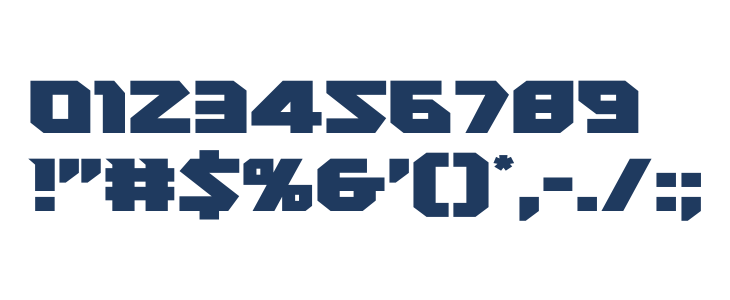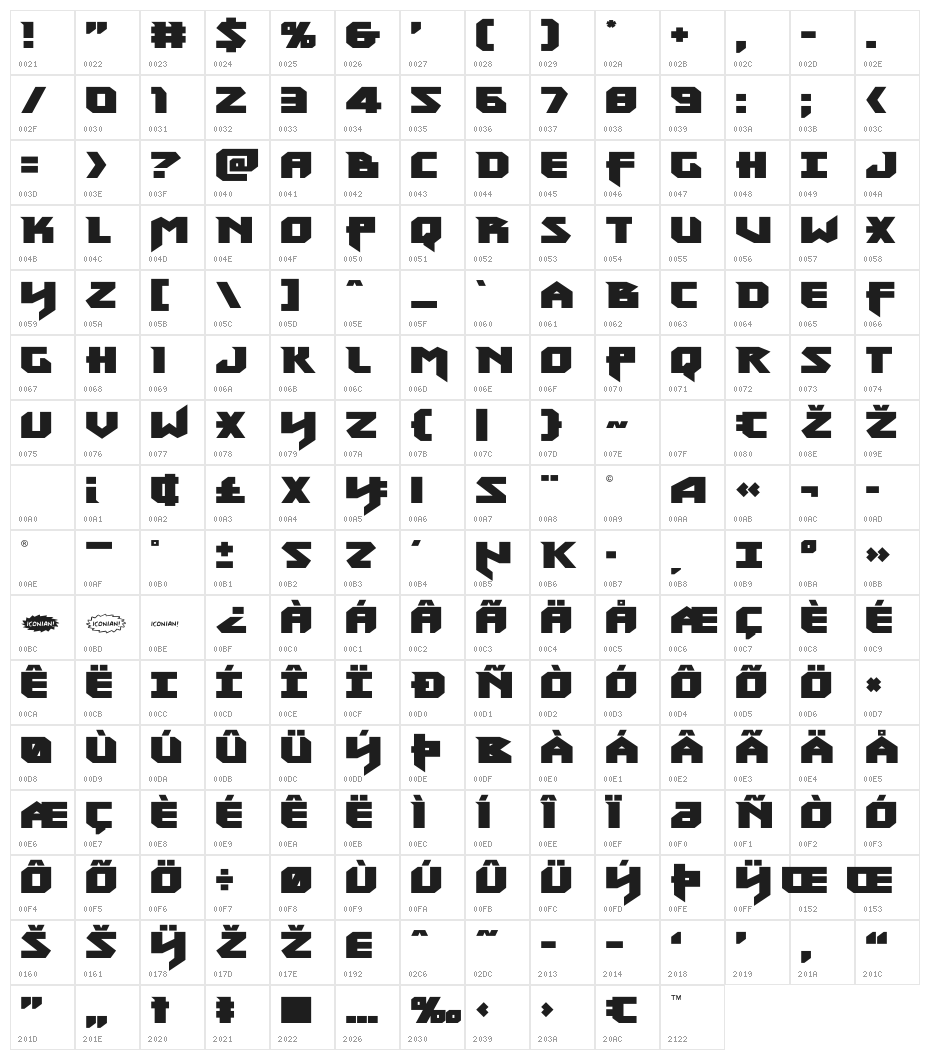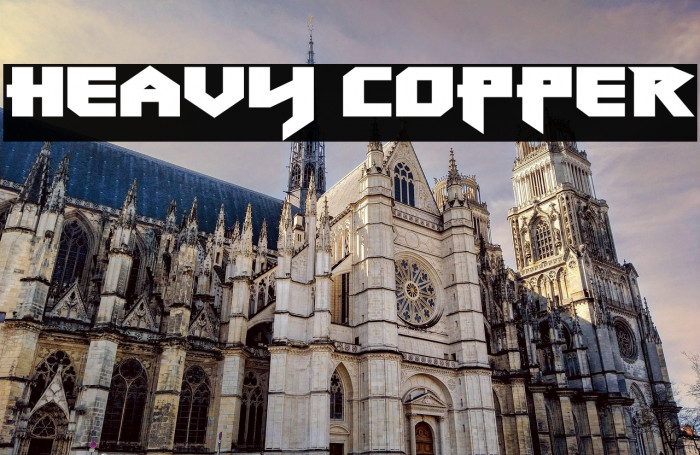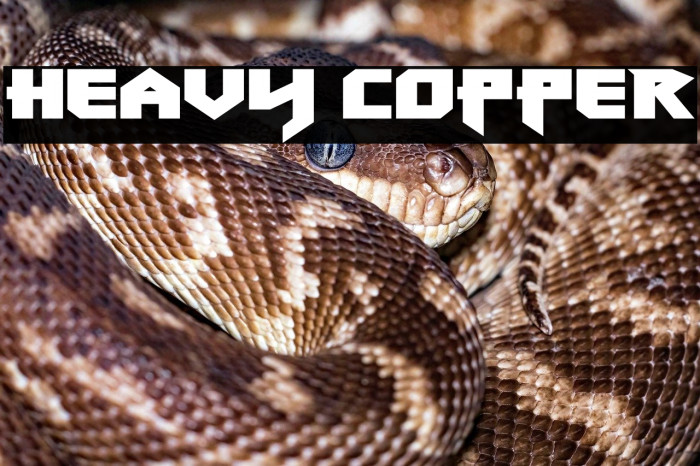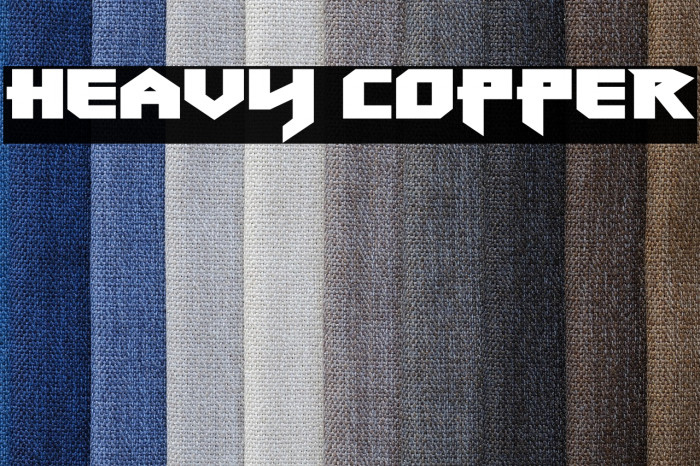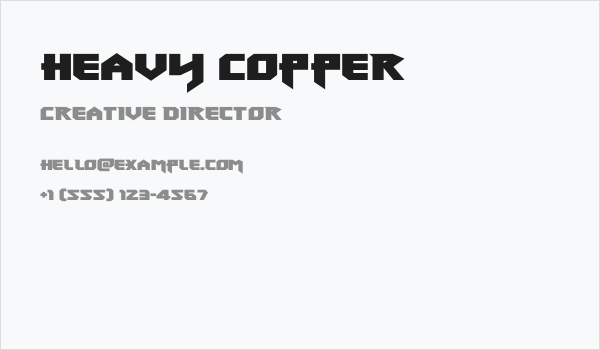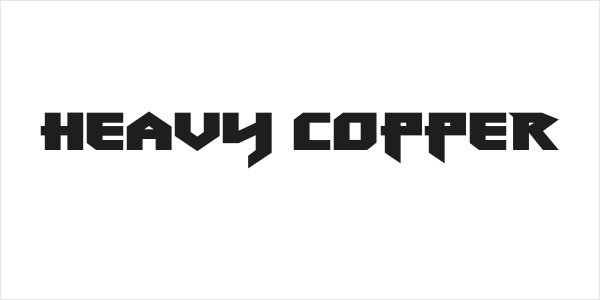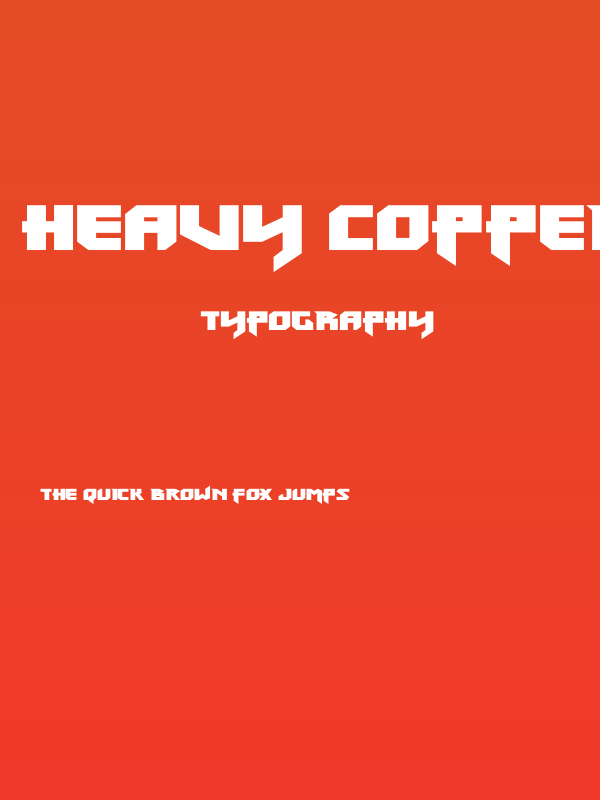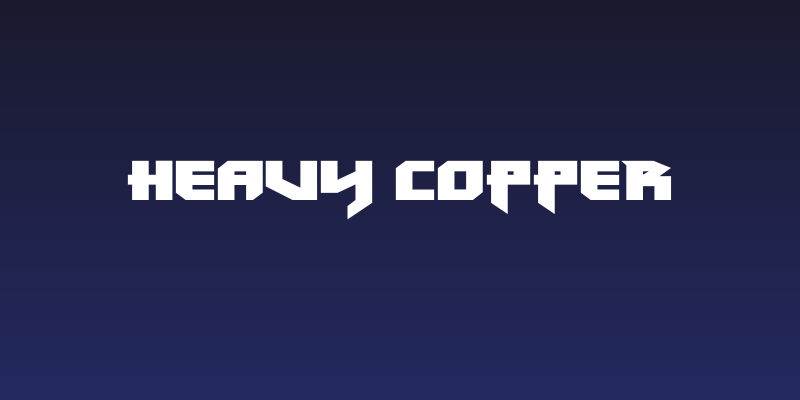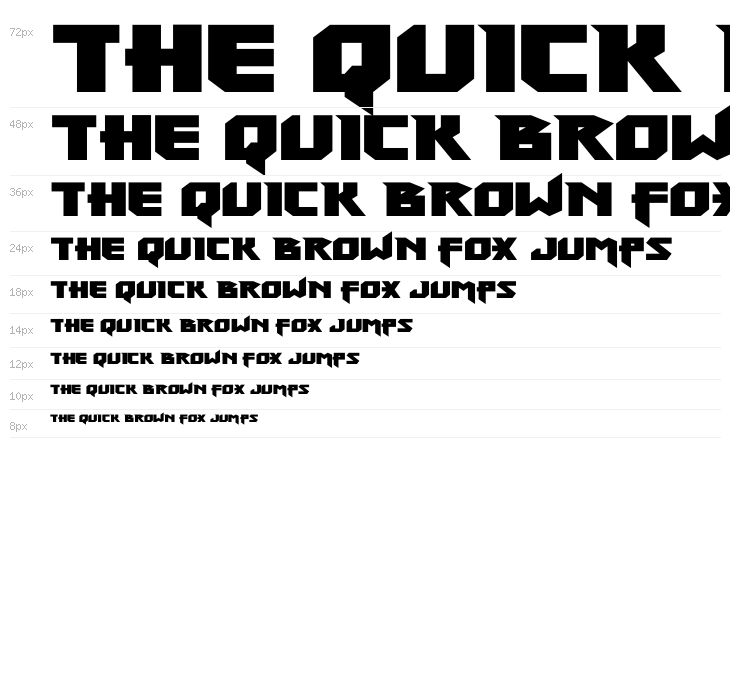
Heavy Copper Font
| 推荐项目 | Ideal for use in video game titles, movie posters, branding for tech companies, or any project requiring a strong, modern aesthetic. |